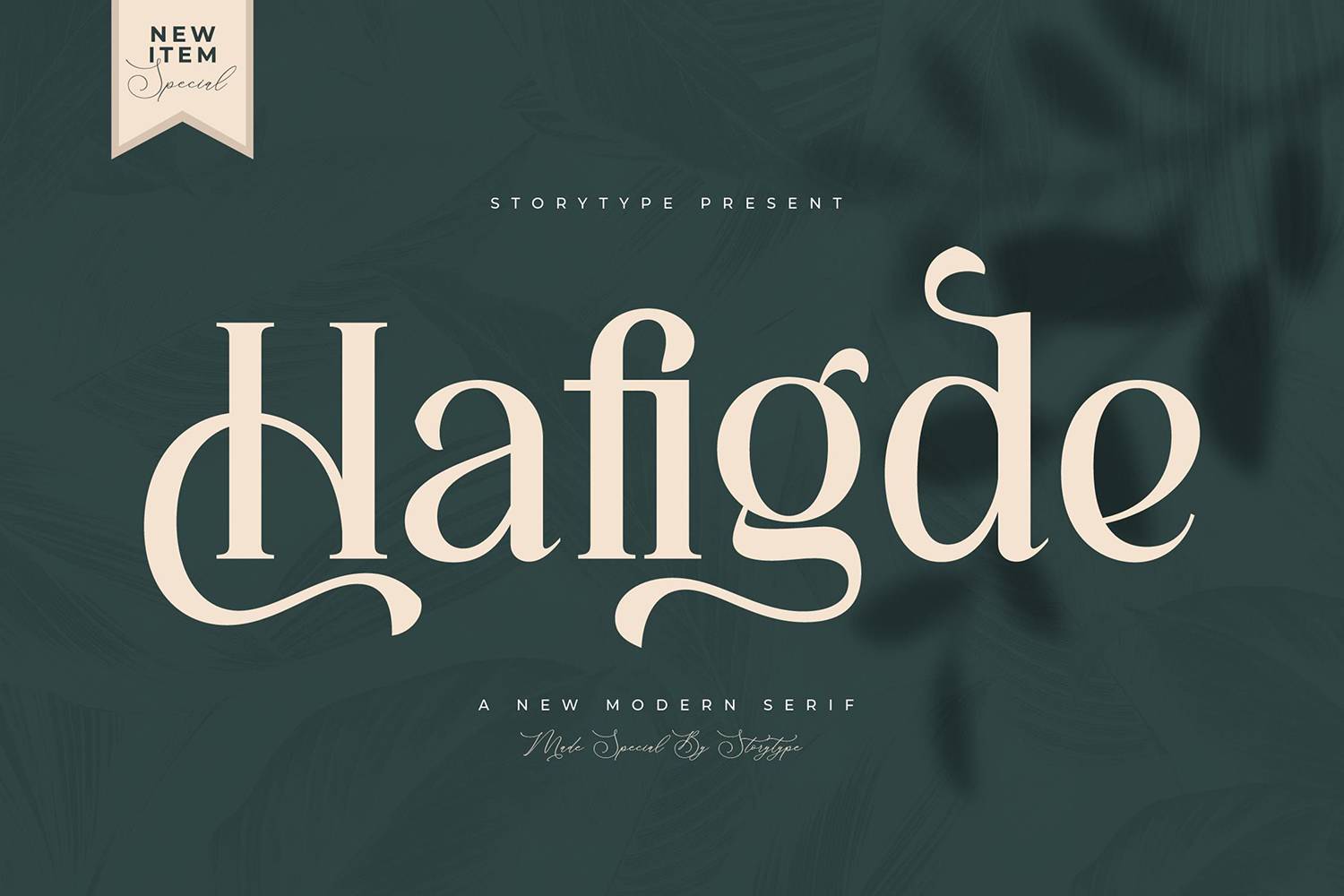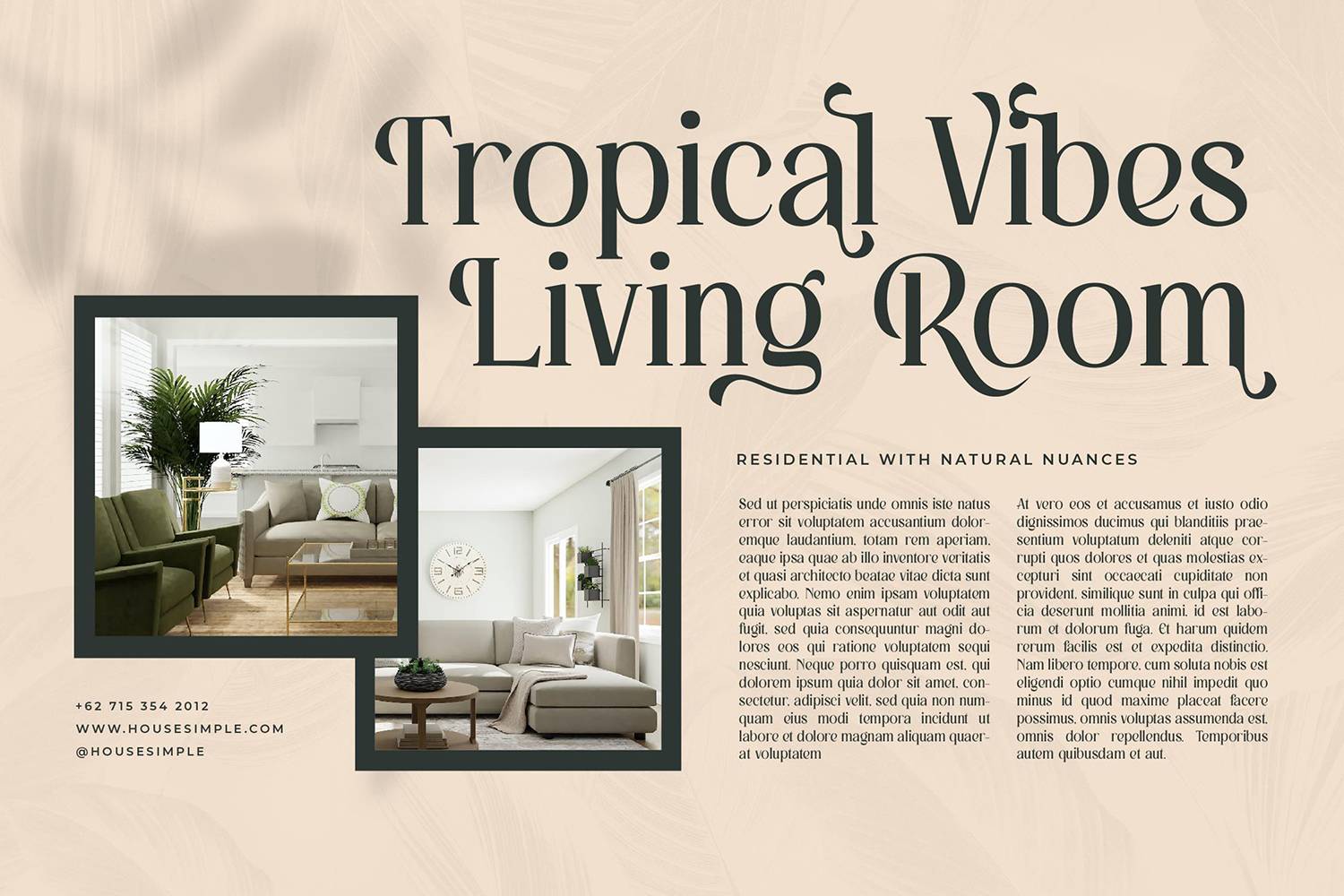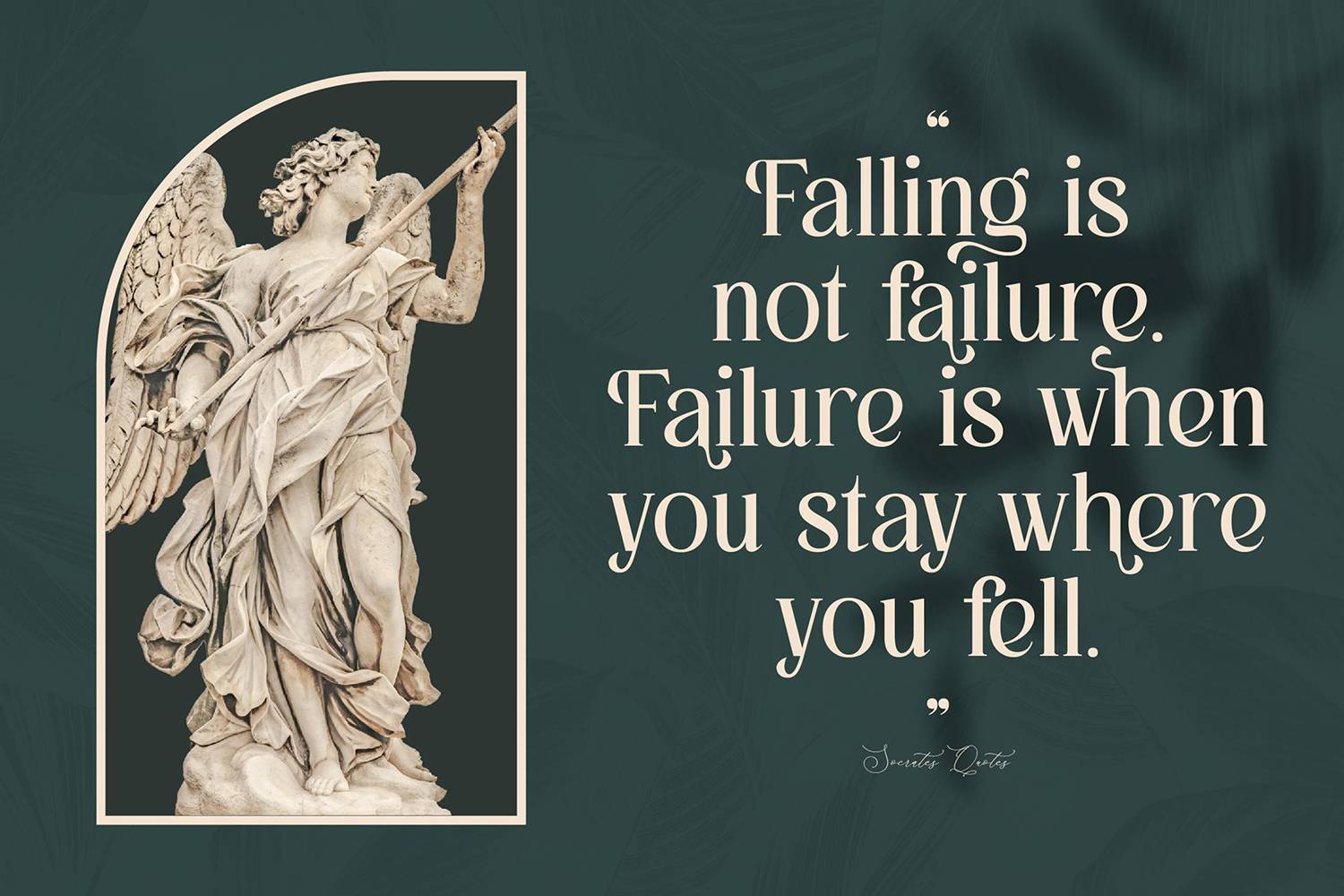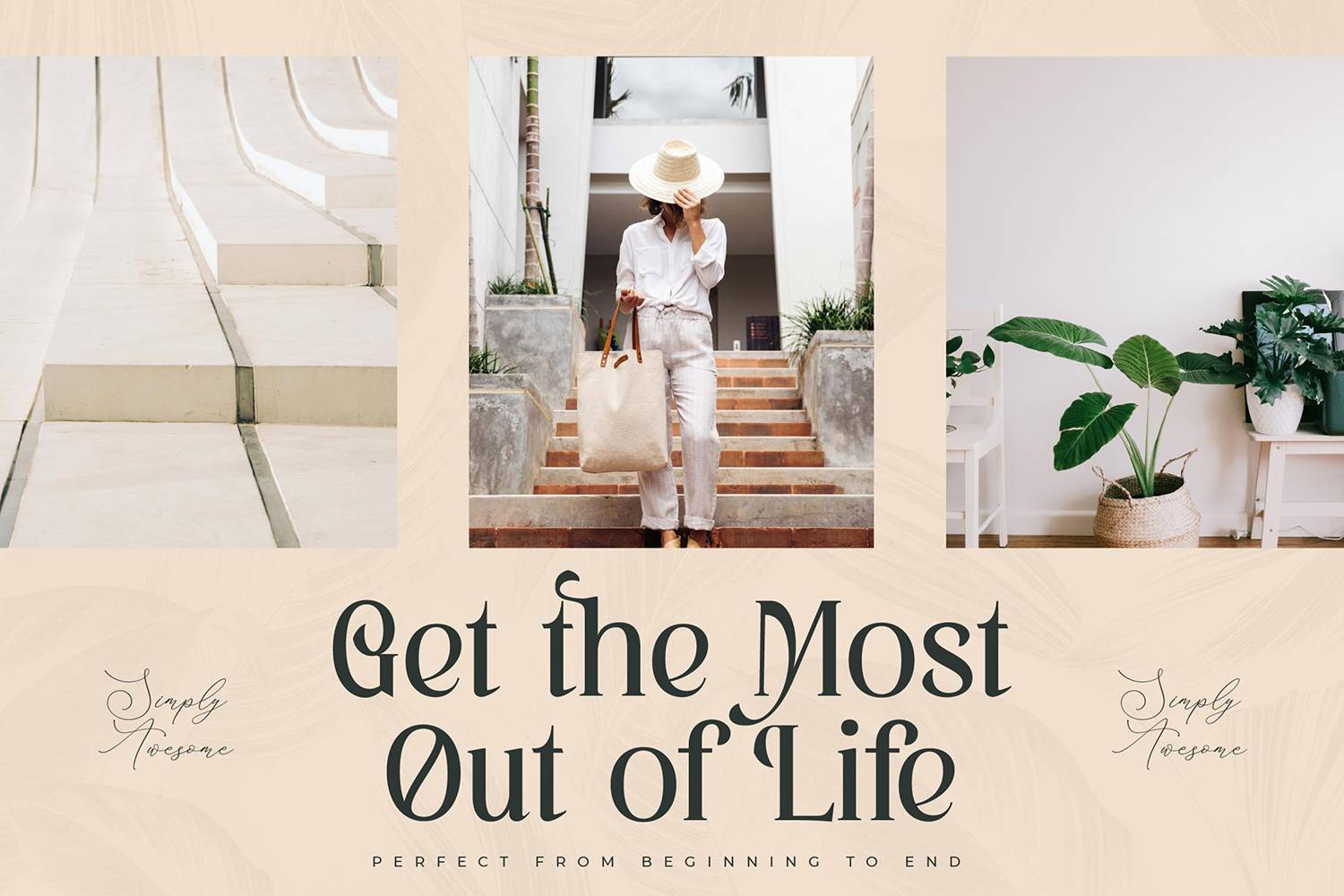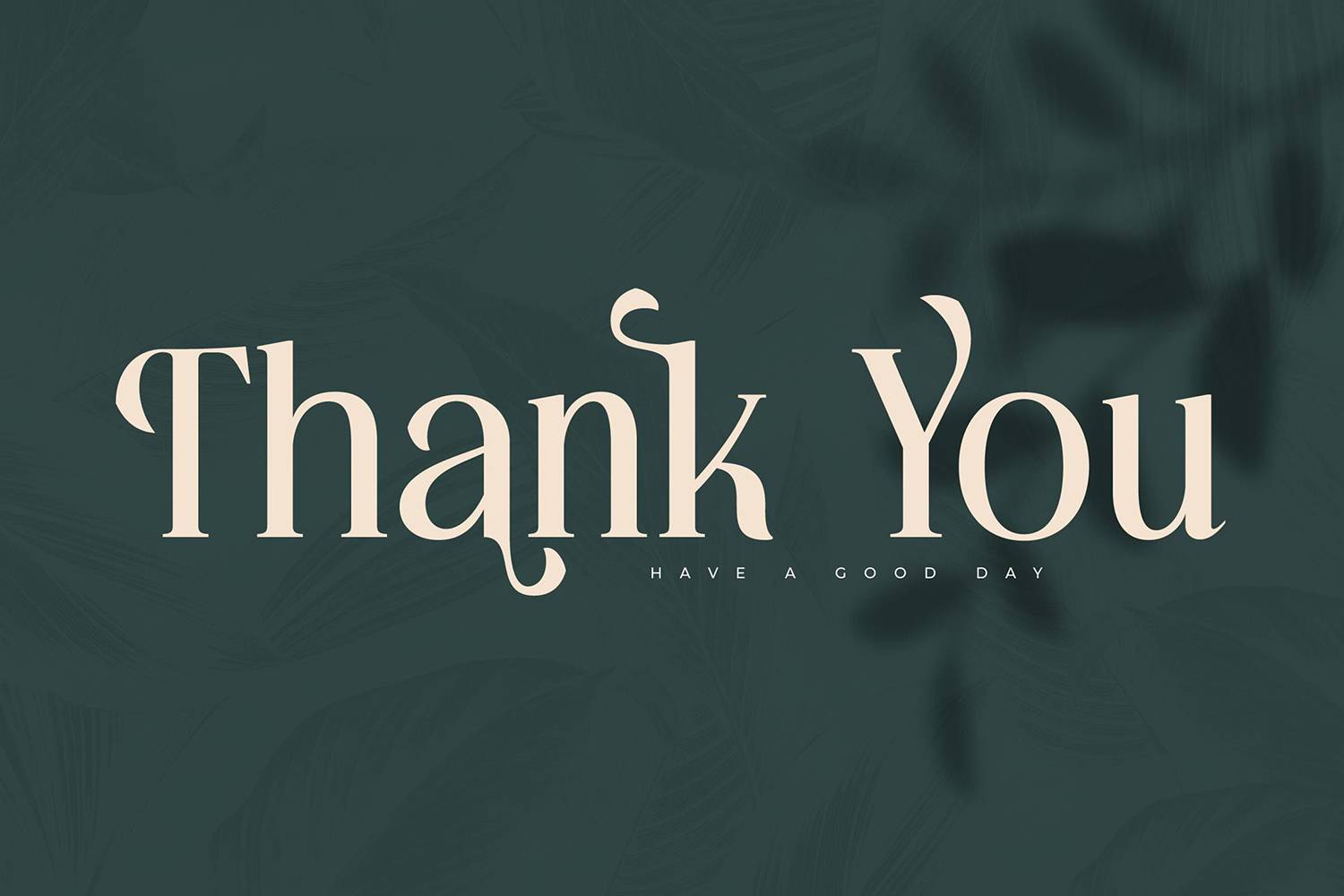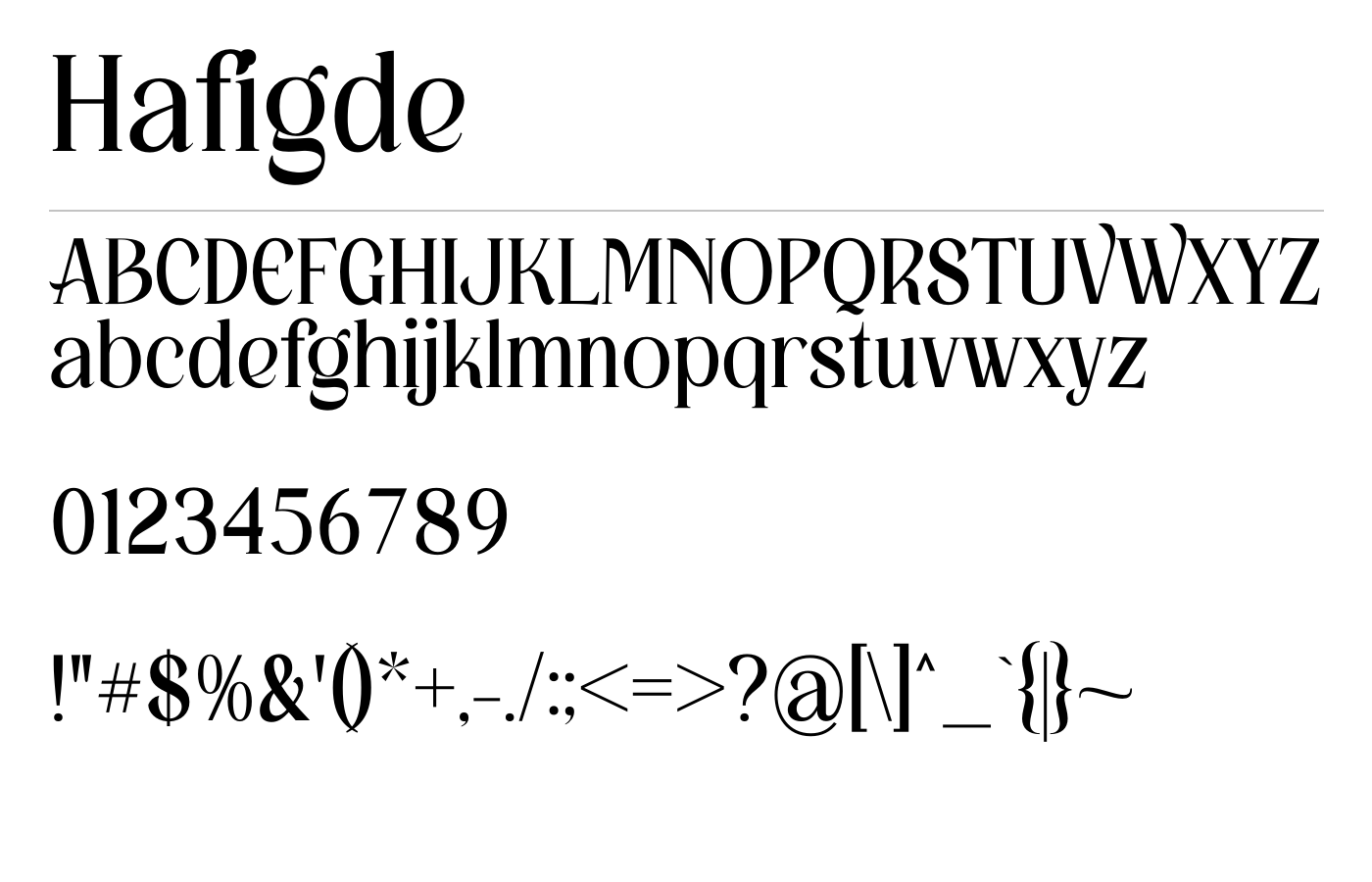
Hafigde is a graceful serif font characterized by its high contrast between thick and thin strokes and elegant, slightly condensed letterforms. Its refined details and classic serif touches give it a sophisticated, timeless feel, making it ideal for luxury branding, editorial headlines, and elegant packaging design where a polished and distinguished look is desired. This font combines traditional charm with modern clarity, enhancing both readability and style in upscale visual communications.
Hafigde Font
About Hafigde Font